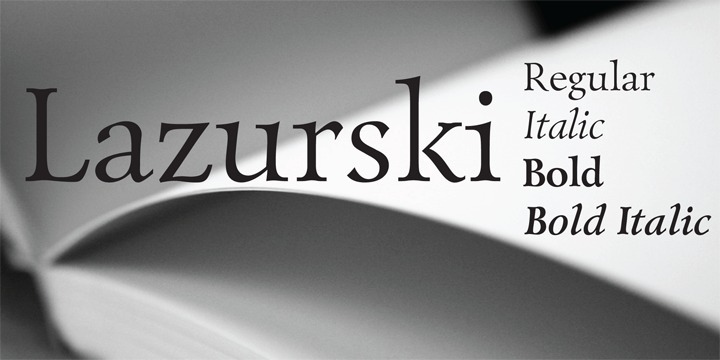
Lazurski Font
Lazurski Font is perfect for azure resort branding, Mediterranean vacation marketing, coastal spa signage, ocean-themed wellness centers, seaside restaurant menus, marine conservation publications, luxury yacht charters, and tropical paradise promotions where serene blue waters and coastal tranquility are emphasized.
What makes Lazurski Font so exciting is its ethereal ability to capture the calming essence of azure waters through flowing letterforms that embody the peaceful serenity and infinite beauty of pristine coastal environments while maintaining excellent readability for resort communications. The tranquil character design reflects the restorative calm and natural elegance that defines premium waterfront destinations.
The Lazurski Font family includes thin, light, regular, medium, and bold weights, with fluid script variants and ocean-inspired ornamental elements that provide comprehensive tools for creating authentic coastal branding and azure-themed design systems.
This serene typeface embodies the spirit of coastal luxury, combining Mediterranean elegance with contemporary hospitality industry requirements. The Lazurski Font Free Download gives coastal businesses access to typography that communicates oceanic tranquility and azure sophistication.
The font's flowing character architecture and peaceful proportions create immediate associations with pristine waters and luxury coastal experiences. Each letterform has been designed to evoke the serenity and natural beauty that defines exceptional waterfront destinations and premium marine environments.
Lazurski Font excels in creating memorable hospitality communications that inspire relaxation and coastal getaway dreams. The typeface's azure character makes it ideal for luxury resorts, coastal spas, and marine tourism operators targeting travelers seeking pristine water experiences and oceanfront tranquility.
From Adriatic coastal hotels to Caribbean beach resorts, this font brings oceanic authenticity that appeals to guests seeking genuine azure paradise experiences and luxury waterfront accommodations. The versatile design maintains its coastal character across both traditional resort materials and modern digital hospitality platforms.